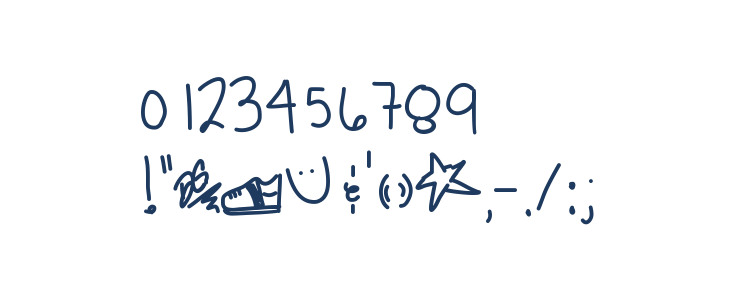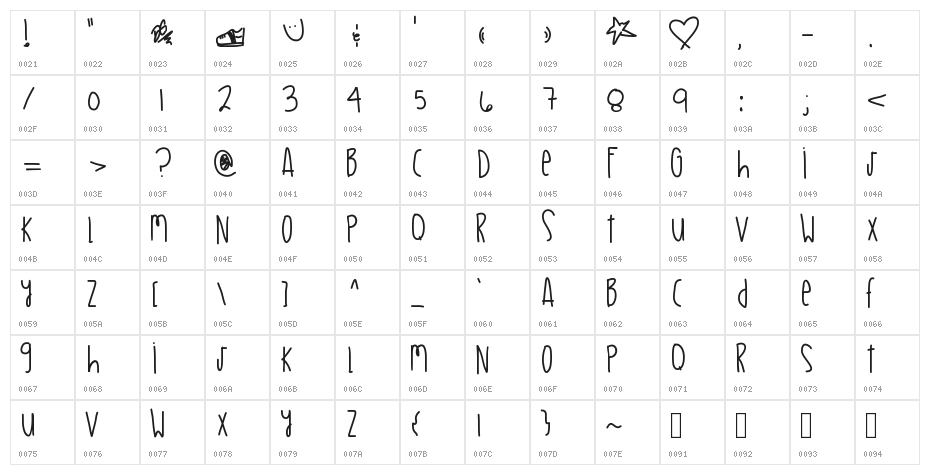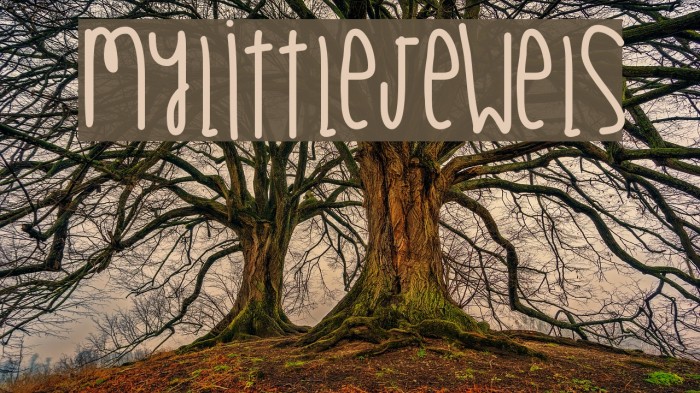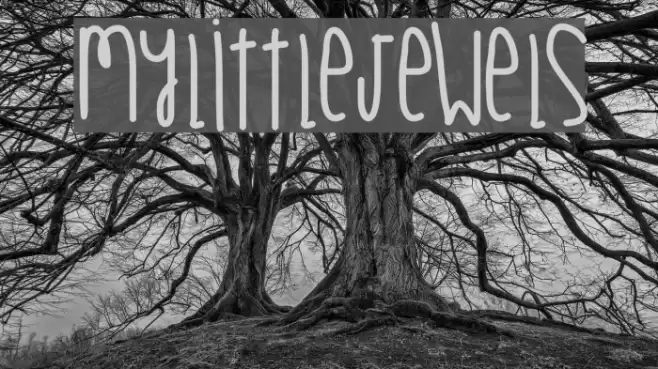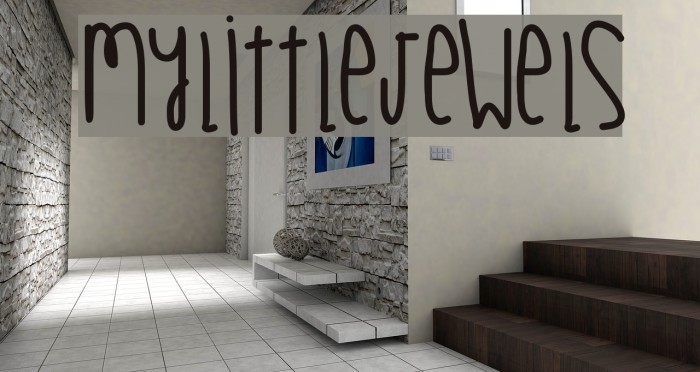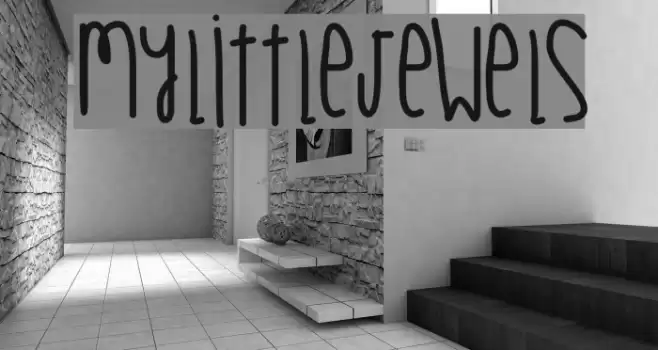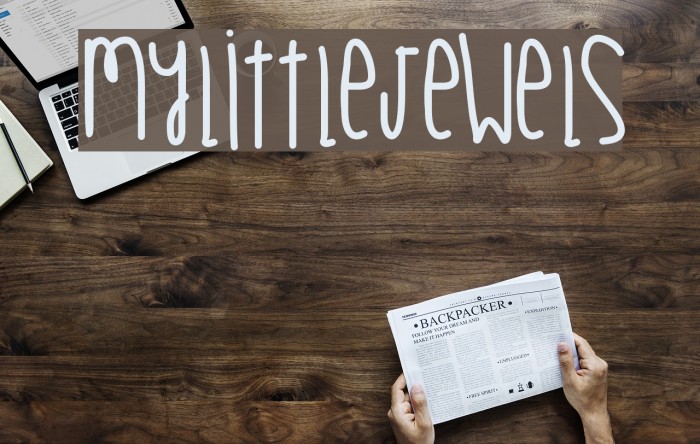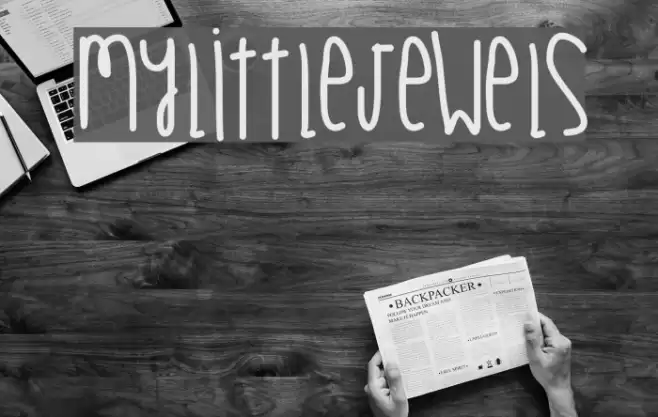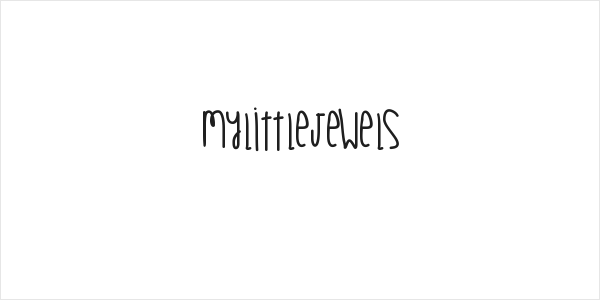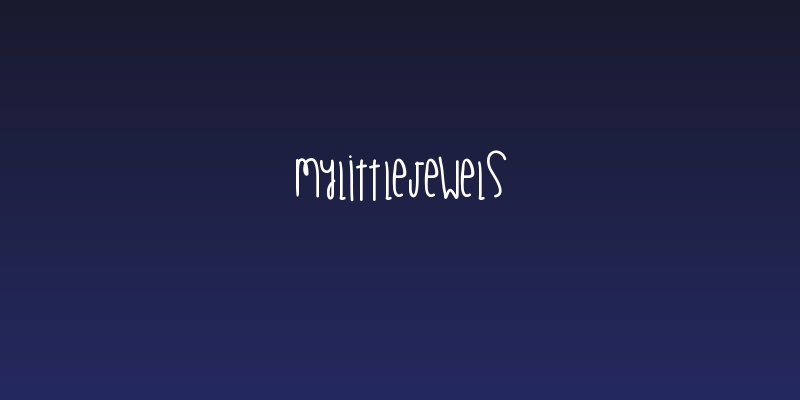
MyLittleJewels Font
MyLittleJewels Description
This playful and whimsical font features a handwritten style with a casual and friendly appearance. The letters are tall and narrow, with a consistent stroke width that gives it a clean look. The uppercase and lowercase characters maintain a uniform height, adding to its cohesive design. Numbers and special characters are included, each maintaining the same playful aesthetic. The font's informal style makes it suitable for creative and fun projects, providing a personal touch to any design.
| Proposed Projects | Ideal for children's books, greeting cards, playful branding, and personal projects. |